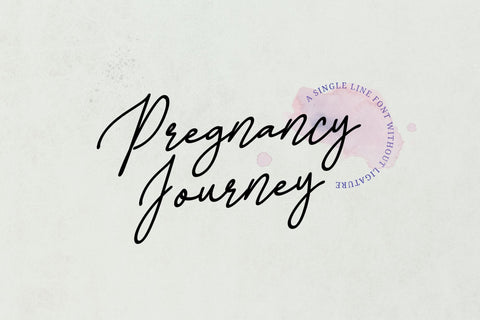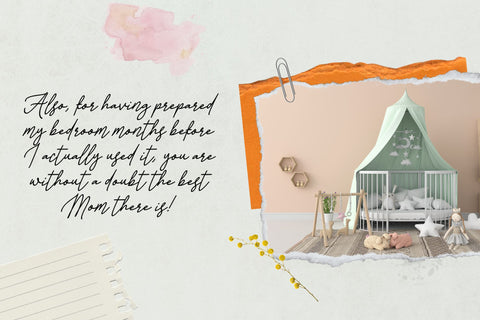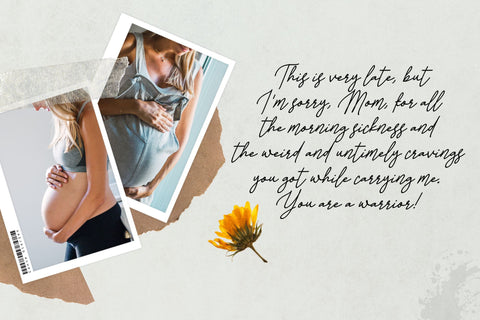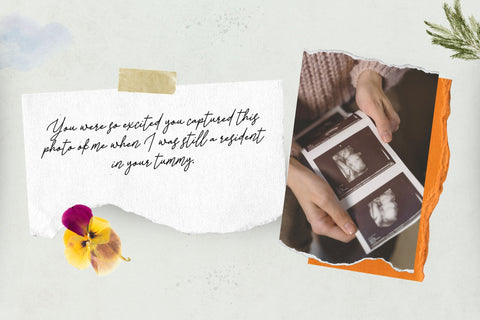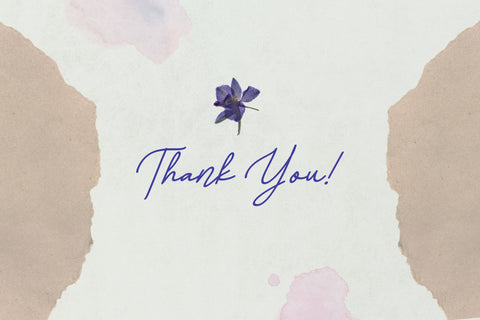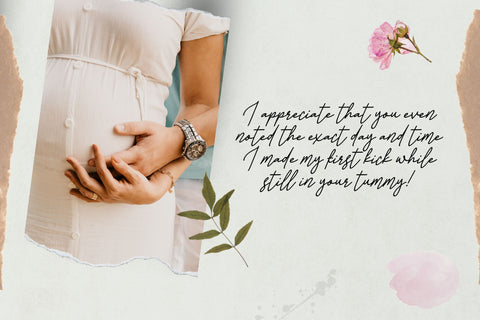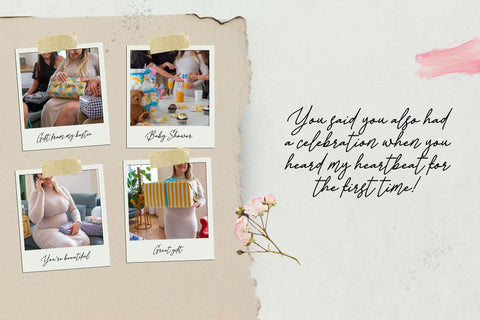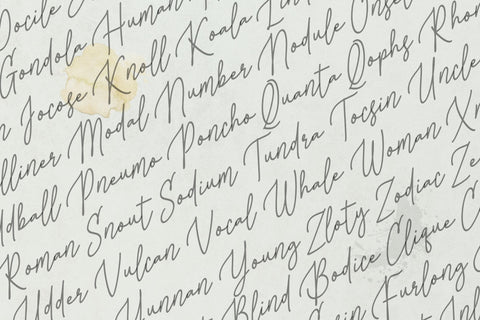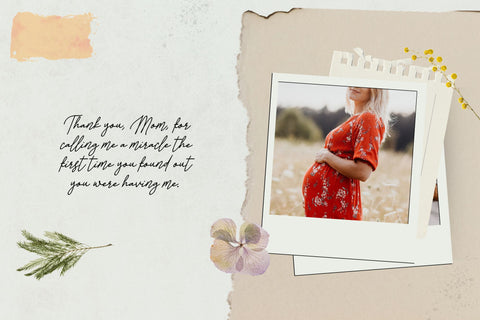
Pregnancy Journey - a Monoline Font
Pregnancy Journey is a Single Line Script style without ligature– a sweet & charming script with a handwritten and script style make this font looks natural, stylish and perfect for any awesome projects that need handwriting taste. This font would perfect for Baby Shower Invitation, Wedding Invitation, Quotes, Journal, Planner, Packaging, or anything else.